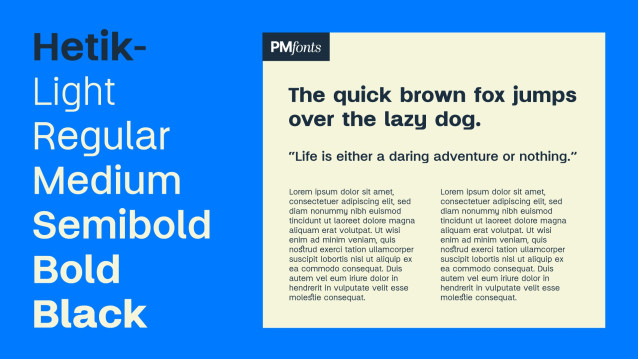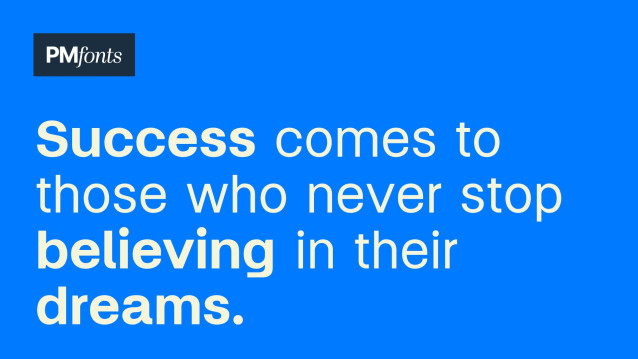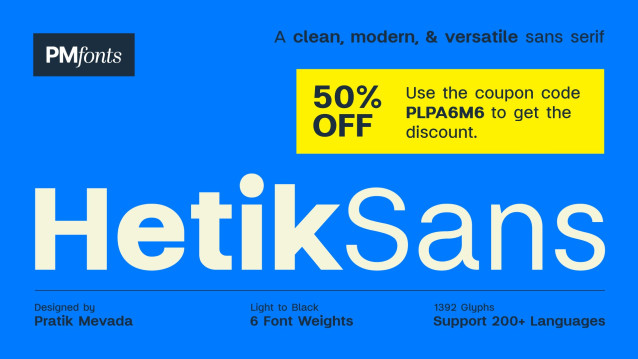
Hetik Font
Hetik Font is a clean, modern, and versatile sans serif font family designed with UI/UX designers, branding studios, and web creatives in mind. With 6 carefully crafted styles — from Light to Black — it brings clarity, balance, and personality to any project.
Built for performance, Hetik features 1392 Glyphs and supports over 200 languages with extended Latin, Greek, and Cyrillic glyph sets, plus IPA for linguists and educators. Whether you’re working on interfaces, logos, print layouts, or mobile apps, Hetik delivers crisp readability and a refined typographic voice.